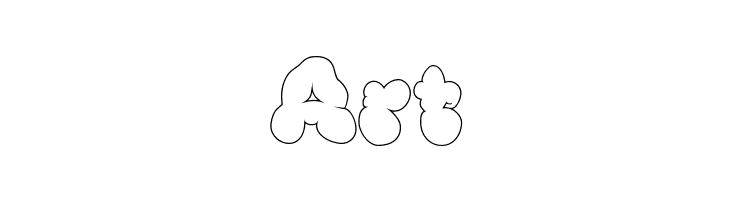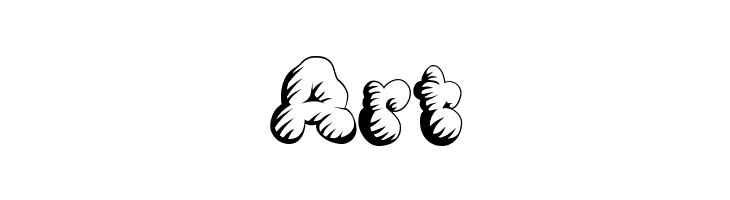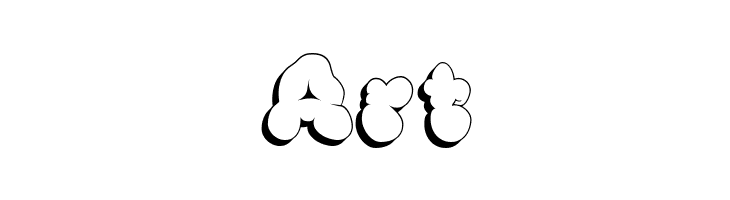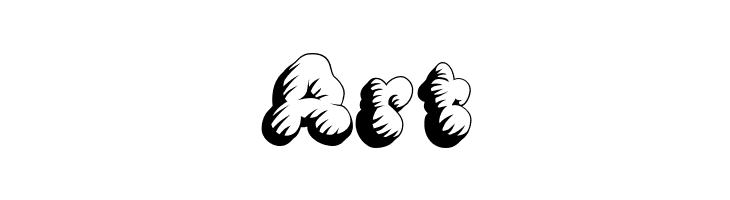
A playful, cloud-like font with a shadow effect, perfect for creative designs.
A playful, cloud-like font with bold, rounded characters and three-dimensional shading.
A playful, cloud-inspired font with a bold, three-dimensional style.
A playful, cloud-like font with bubbly, outlined letterforms and quirky cutouts.